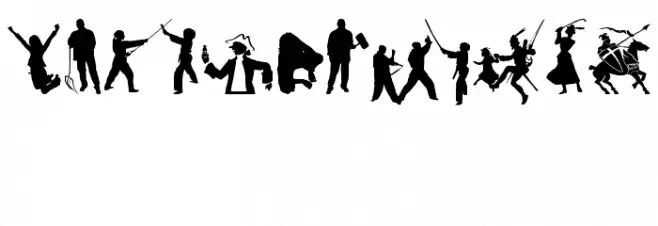
Human Silhouettes Free Eight Font
Human Silhouettes Free Eight Description
A collection of black human silhouette figures in various dynamic poses and activities, including sports, dancing, working, and casual stances. The silhouettes are solid black with no internal details, emphasizing shape and posture.
Black human silhouette figures depicting diverse actions and poses from Uncategorized fonts.
- Proposed Projects: Use in graphic design projects, posters, infographics, presentations, and websites to represent people or activities without detailed features.
- Overall Style: Decorative and illustrative
- Use Case: Visual storytelling, icons, signage, and thematic design elements.